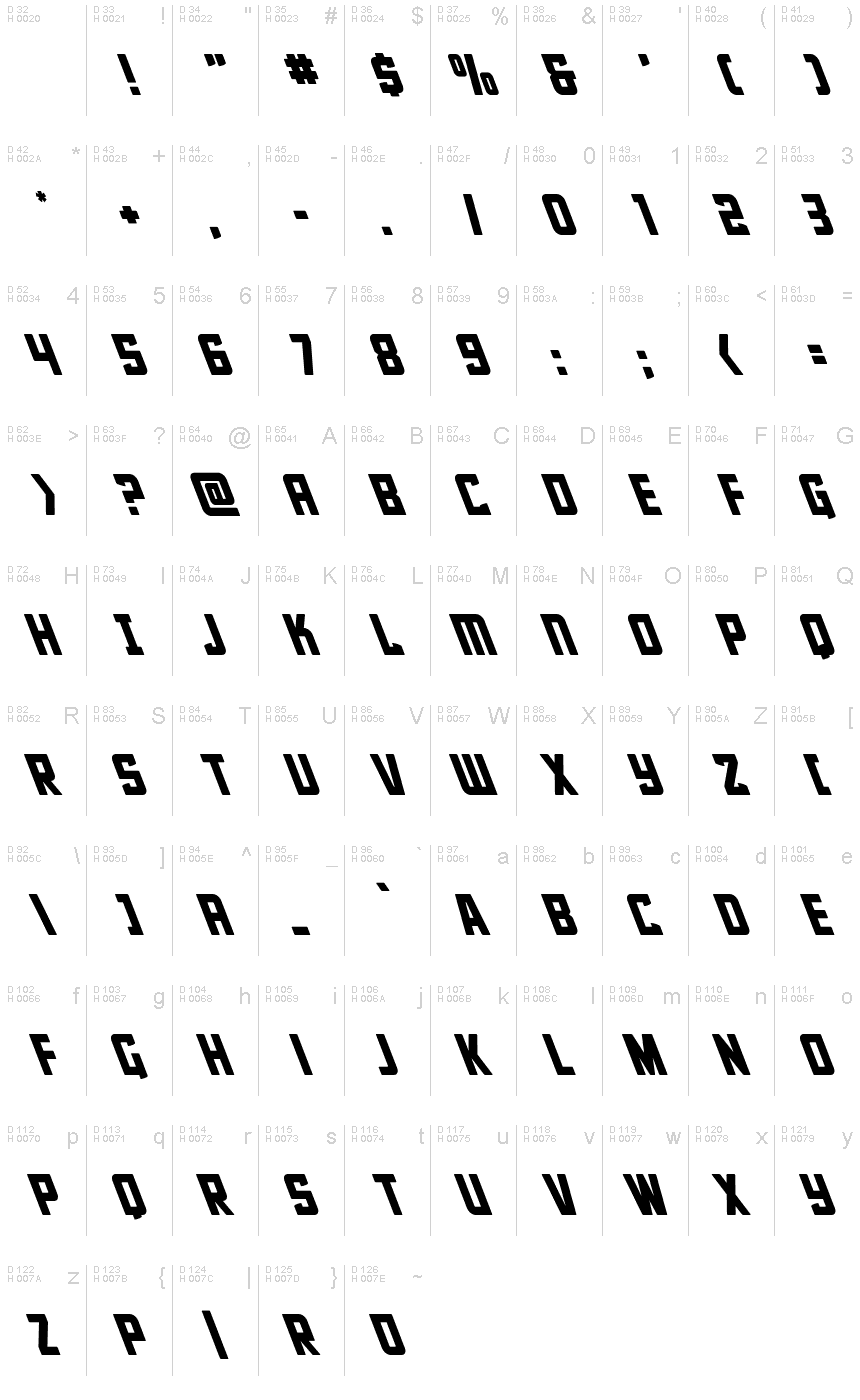
Phantom Storm Super-Leftalic
Phantom Storm Super-Leftalic is a unique display font that will take your designs to new heights. Designed by Iconian Fonts, this techno-inspired typeface boasts a semi-bold weight and condensed width, making it perfect for projects that require a strong and impactful presence. Whether you're designing logos, posters or packaging, Phantom Storm Super-Leftalic's sharp angles and futuristic vibe will make your work stand out from the crowd. Use it for anything from electronic music festival posters to cutting-edge tech product branding. Don't settle for ordinary typography - harness the power of Phantom Storm Super-Leftalic today!